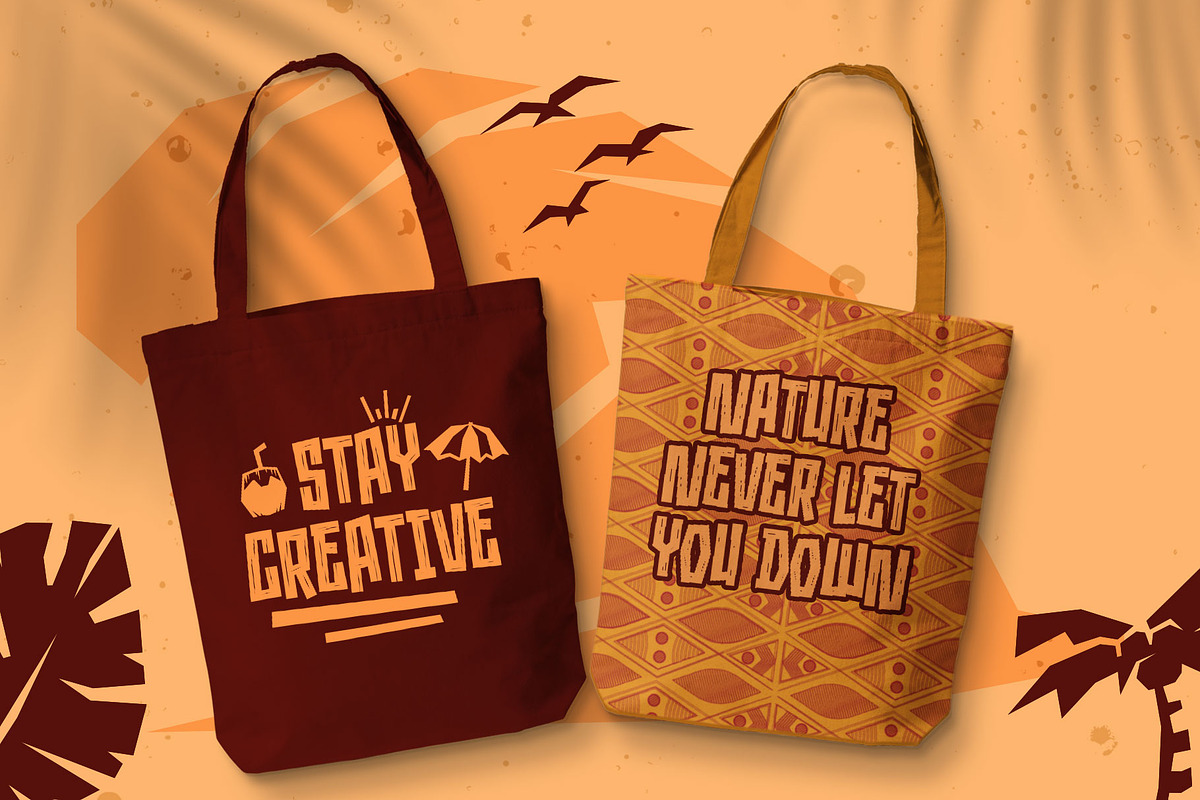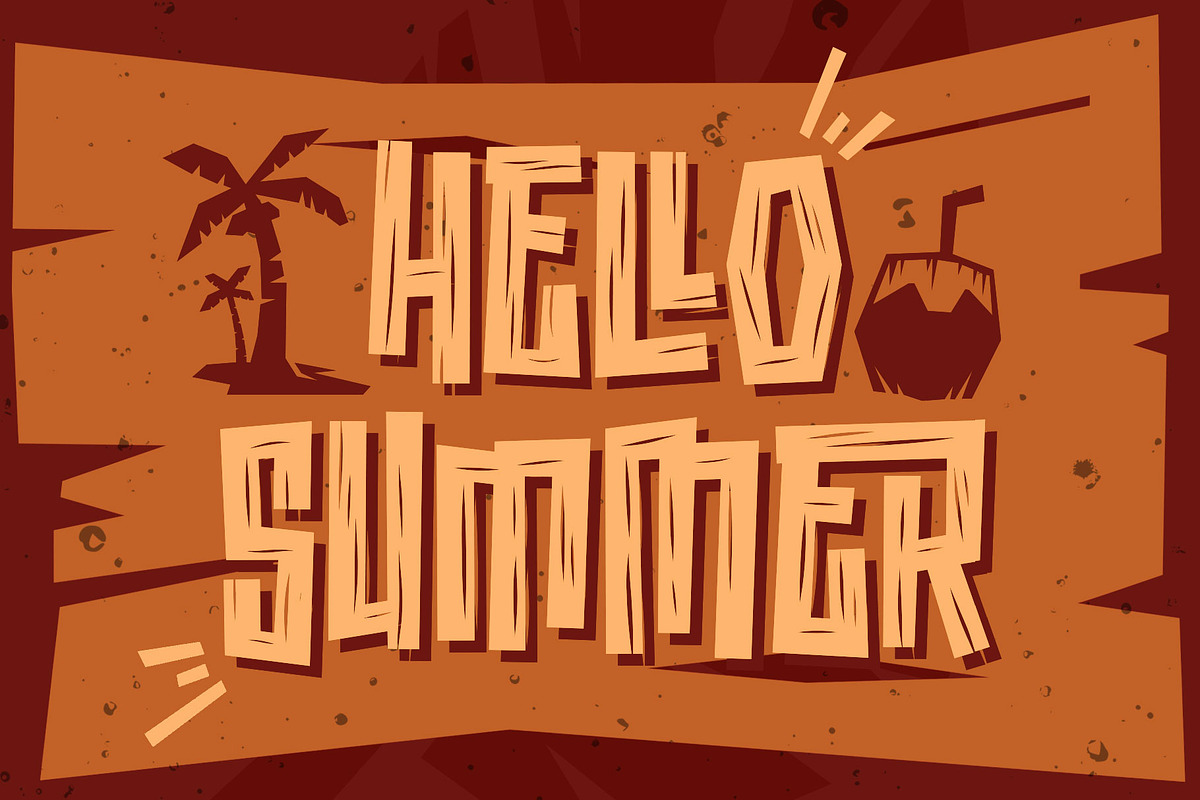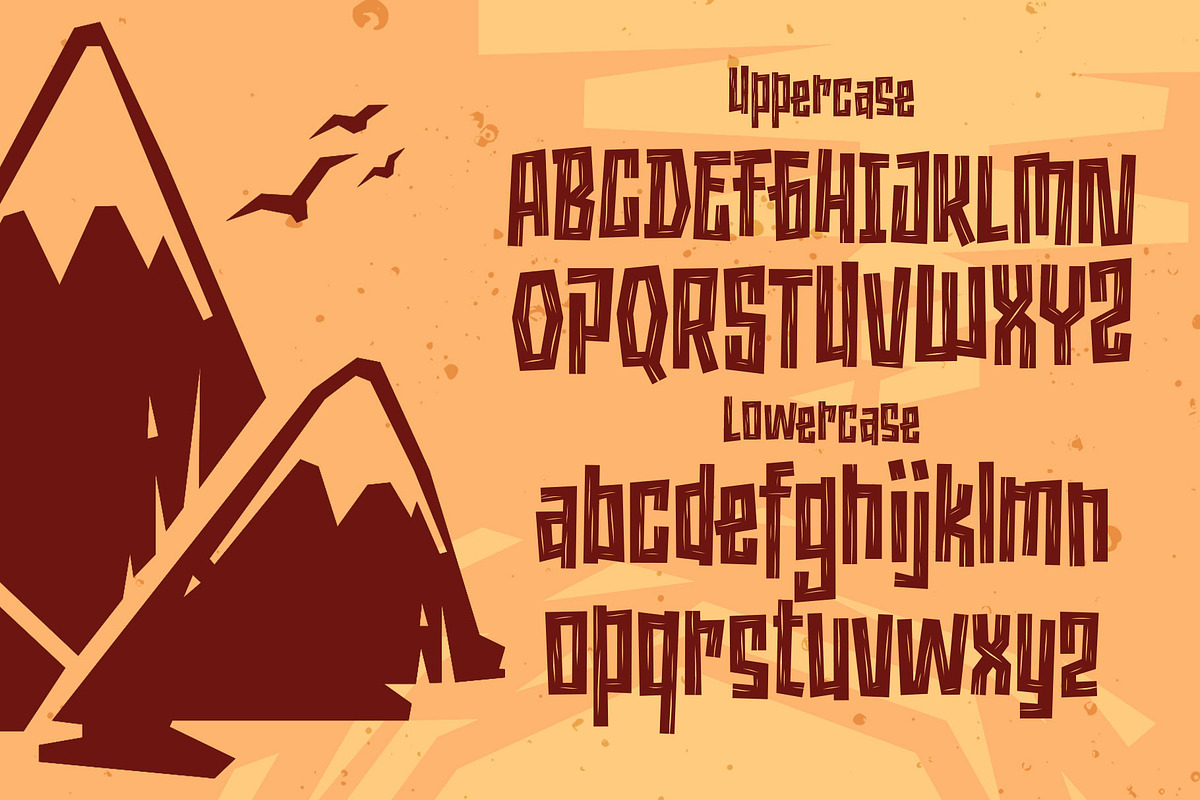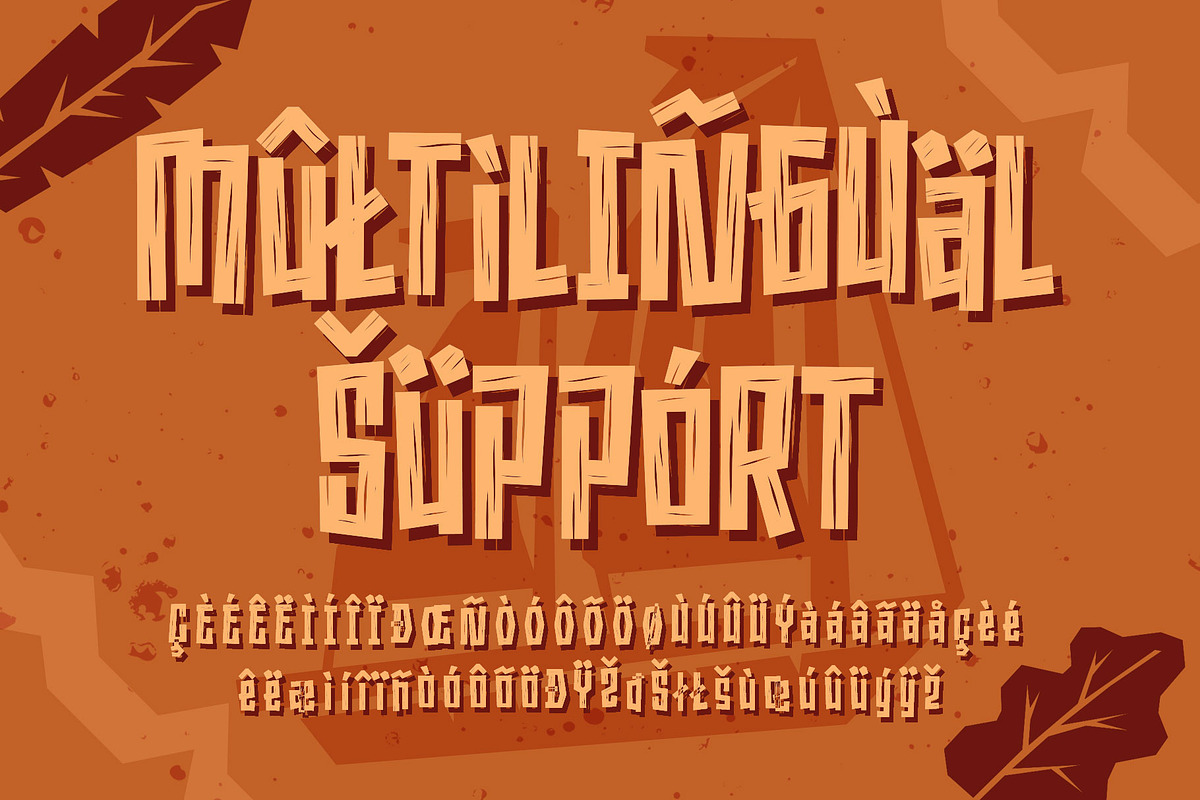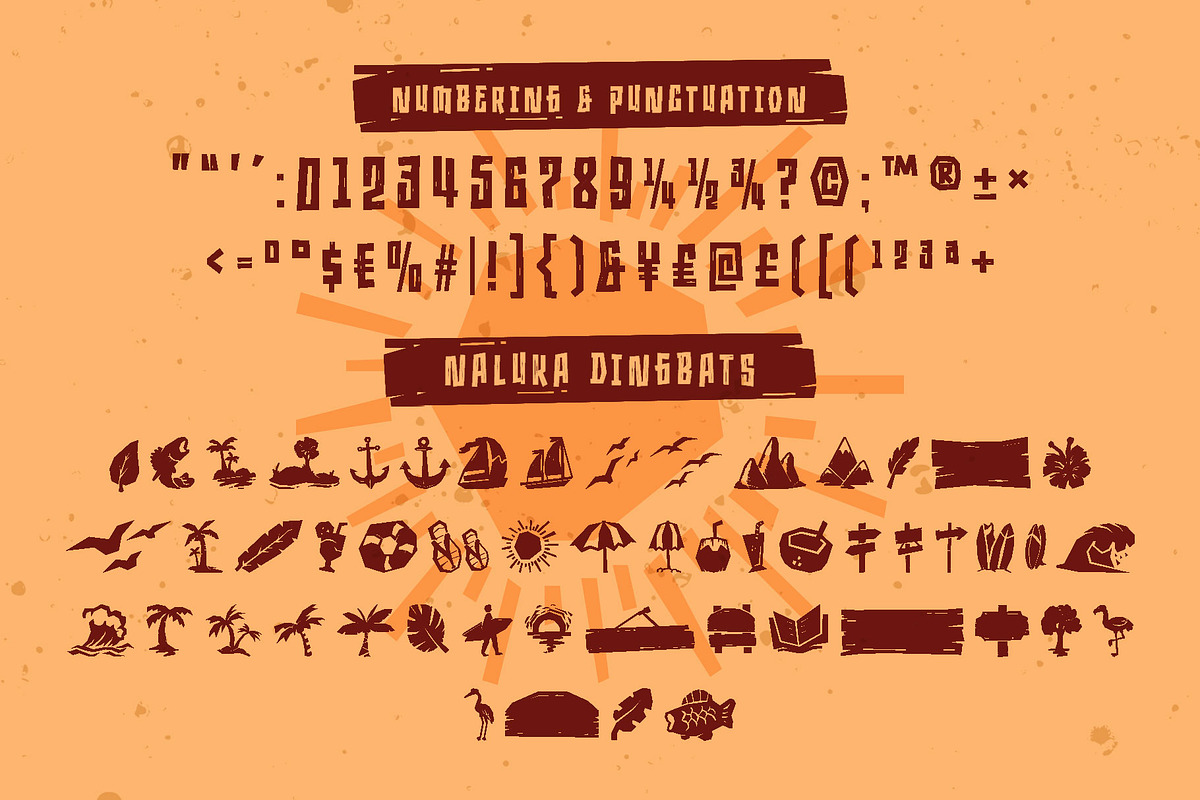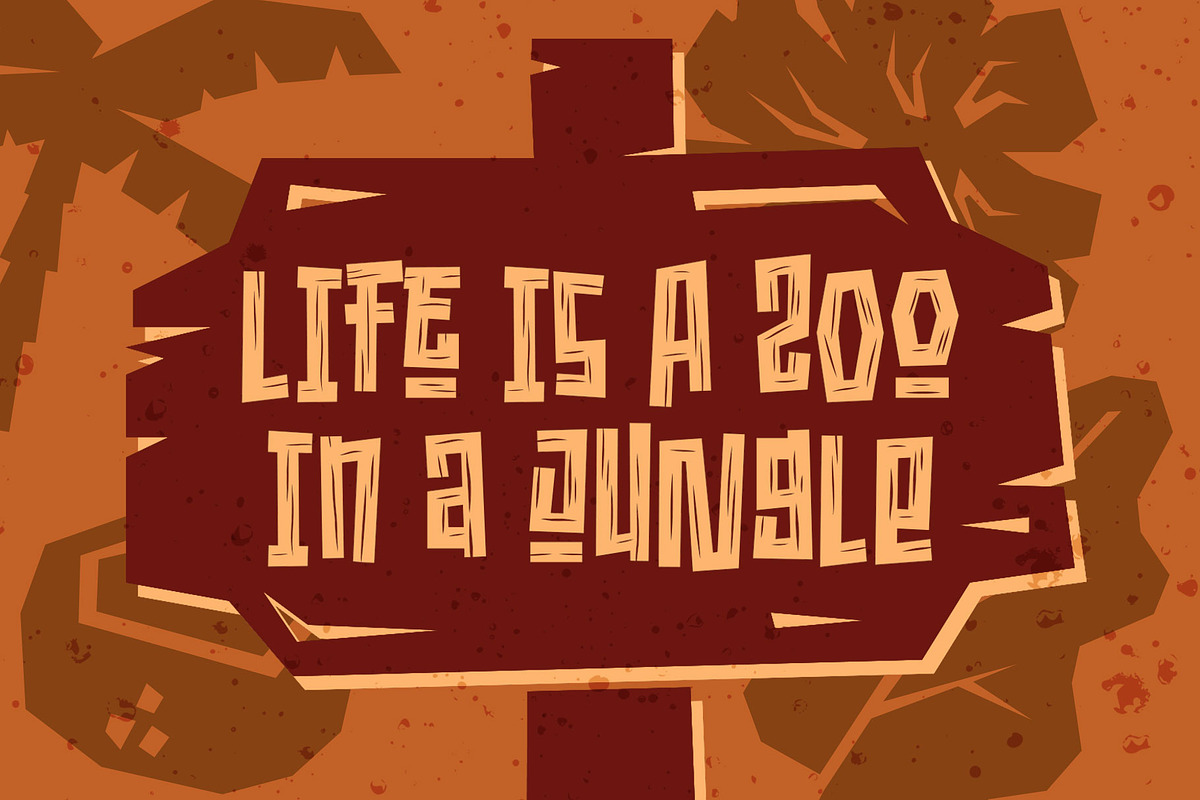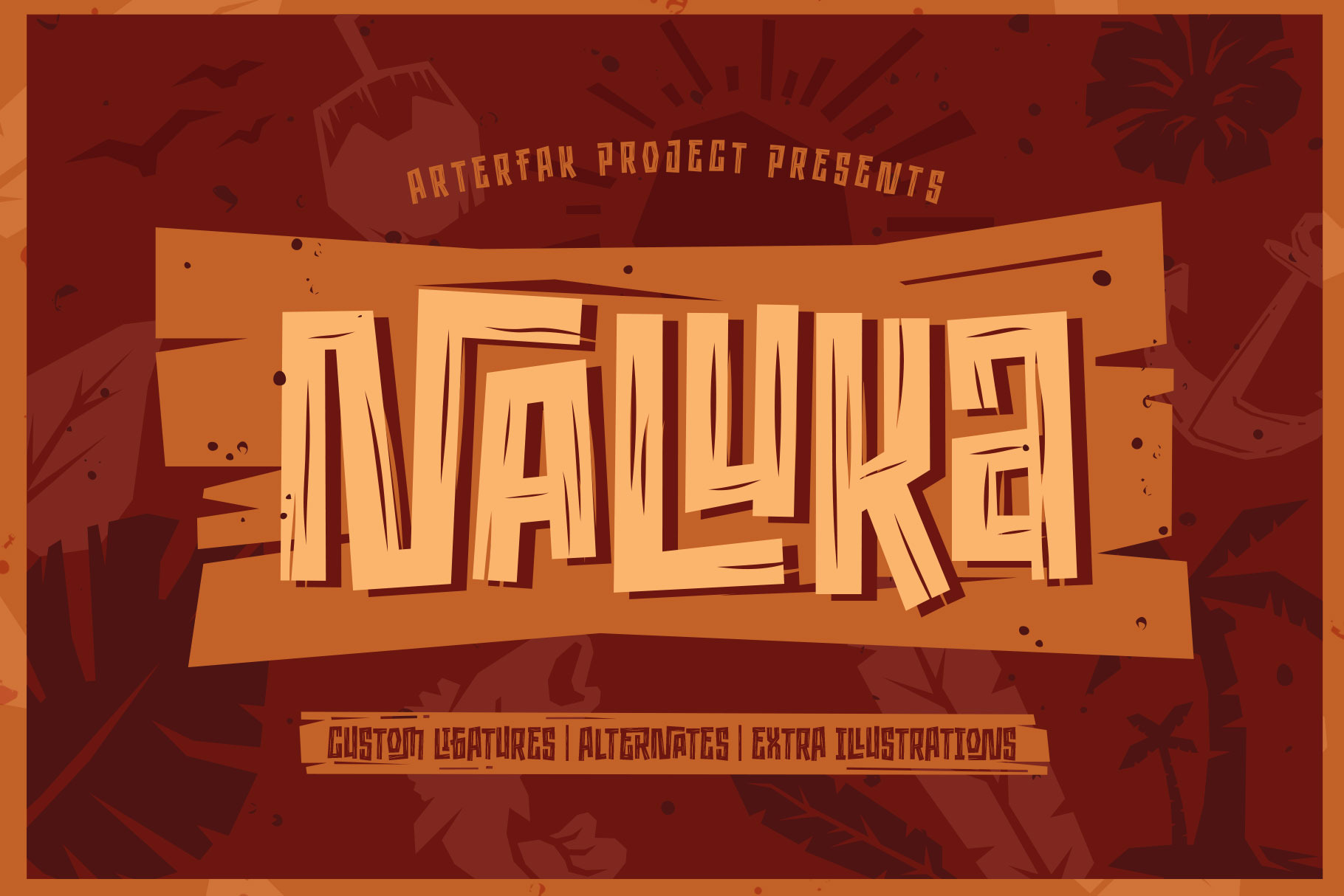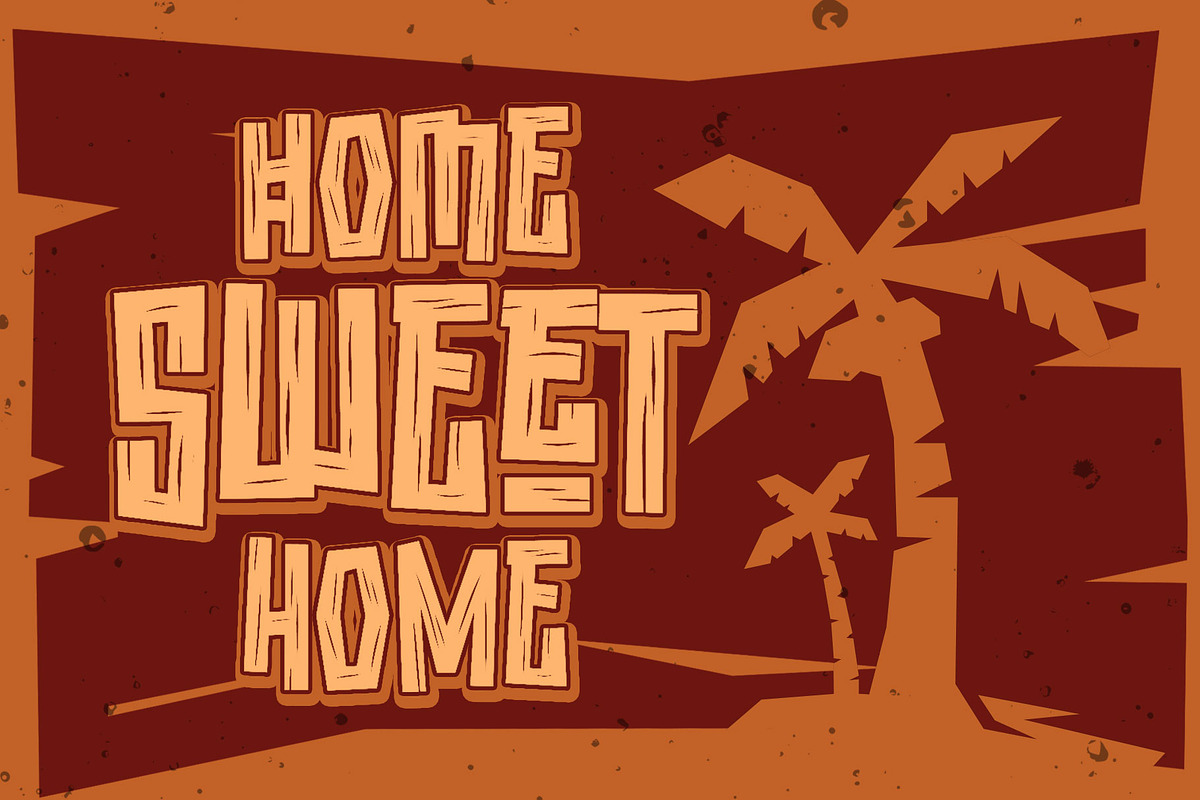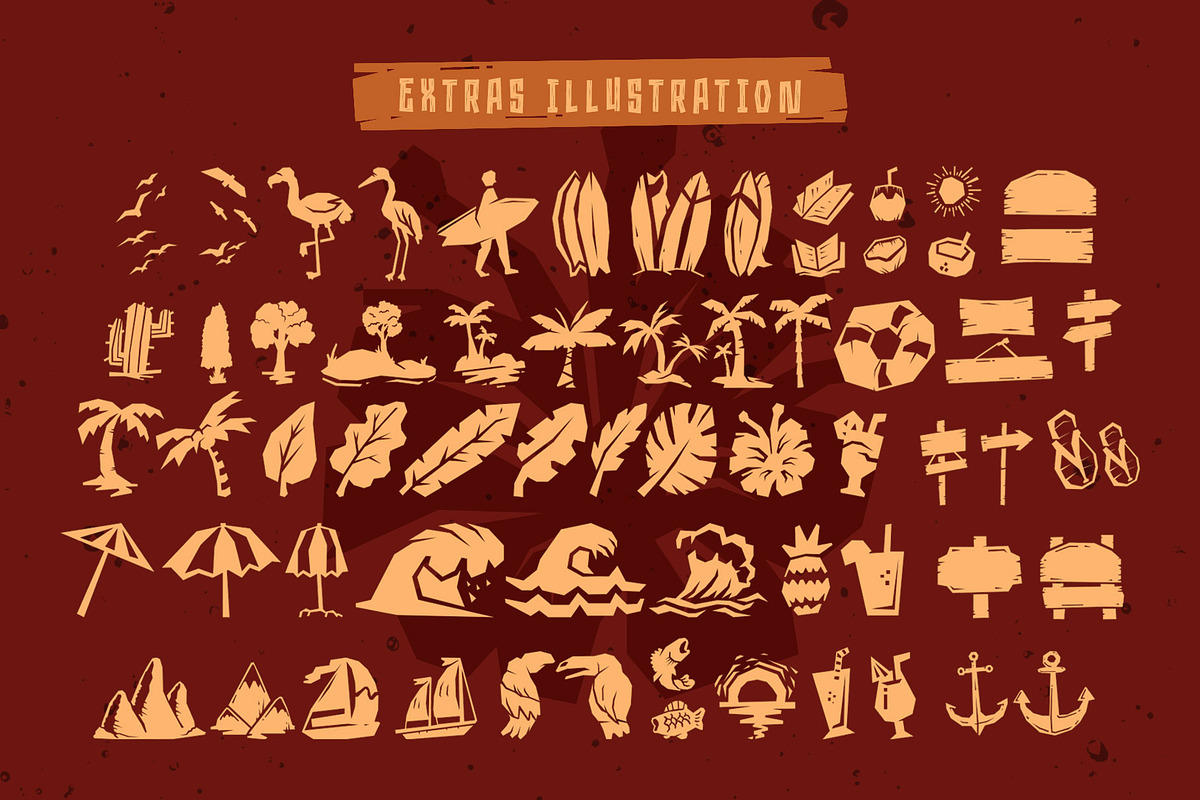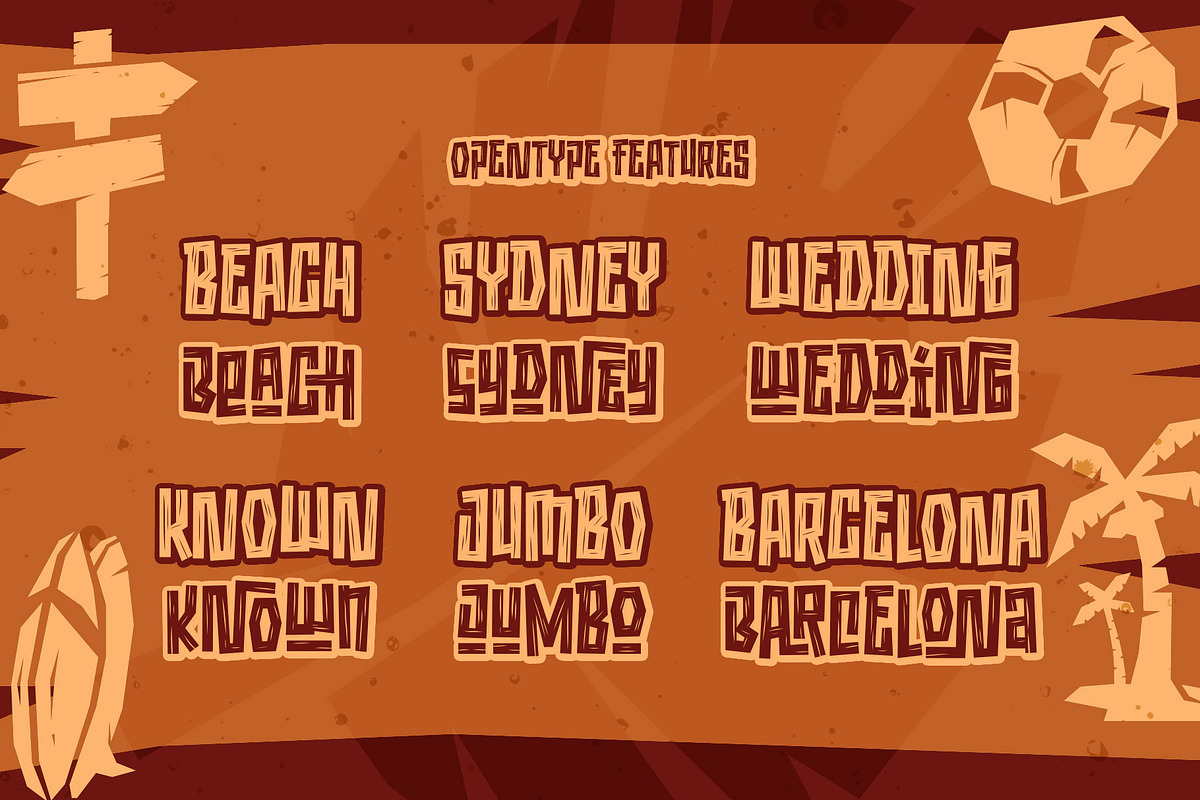
Naluka - Ethnic Font with Extras
Introducing our brand new ethnic font "Naluka". Funny, joyful, and unique! The new exploration of the ancient-style font, inspired by the geometric tribal ornaments and wood texture applied to the font as the special effect to gives this font looks more fun and friendly!
Naluka is created especially for specific themes such as summer, holiday, tropical, ethnic, cartoon, beach, cultural, children, and many more! This font is suitable for displays, packed with extra illustrations and OpenType features that you can combine to express your concept!
- Stylistic alternates
- Stylistic set
- Custom ligatures
- Multilingual characters
- Dingbats font